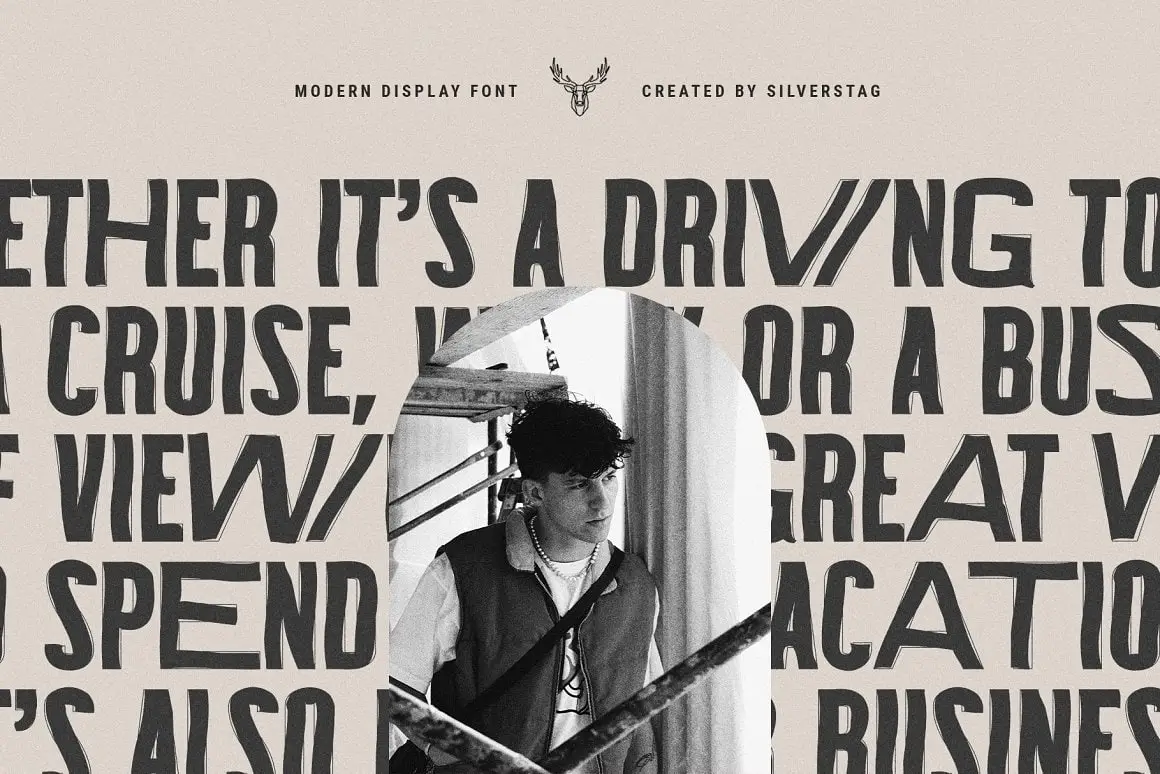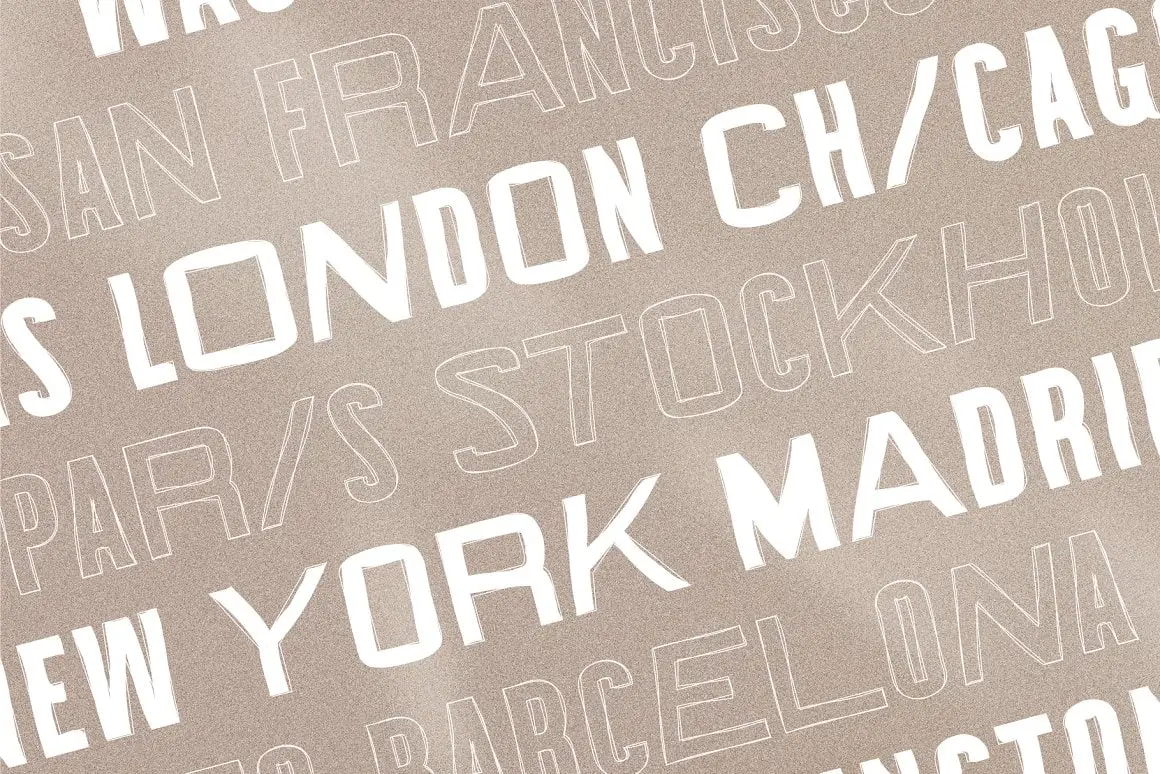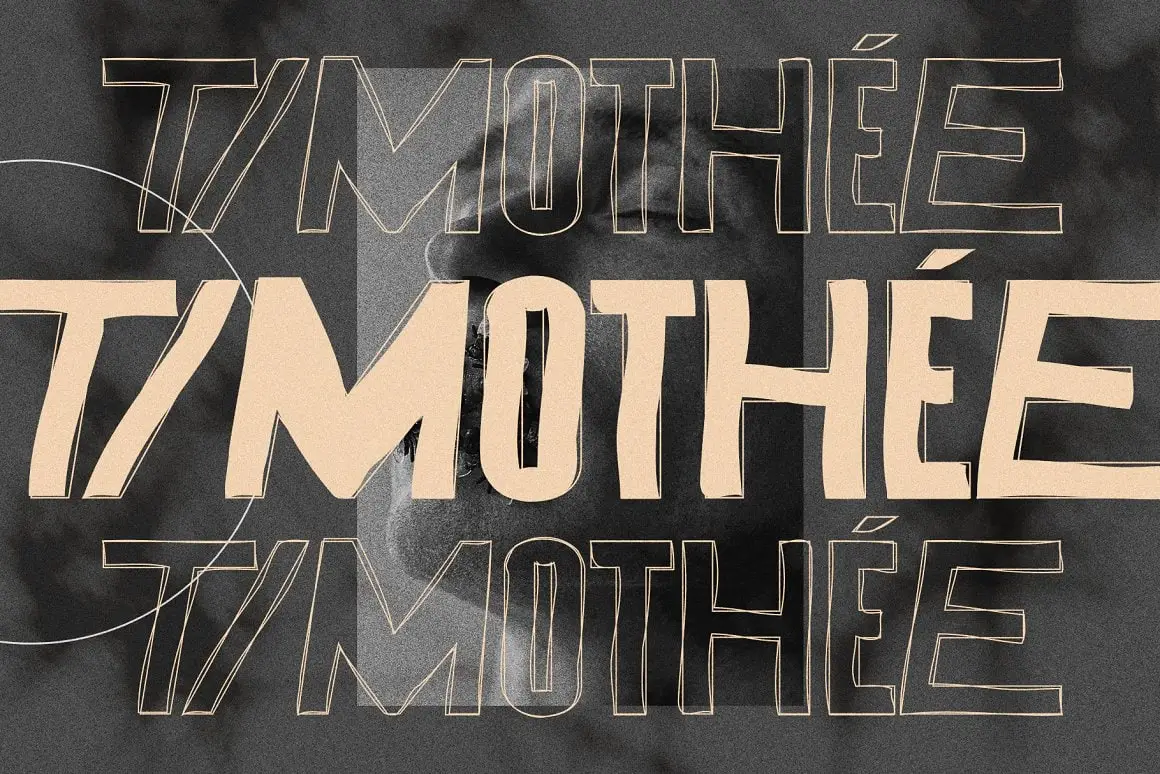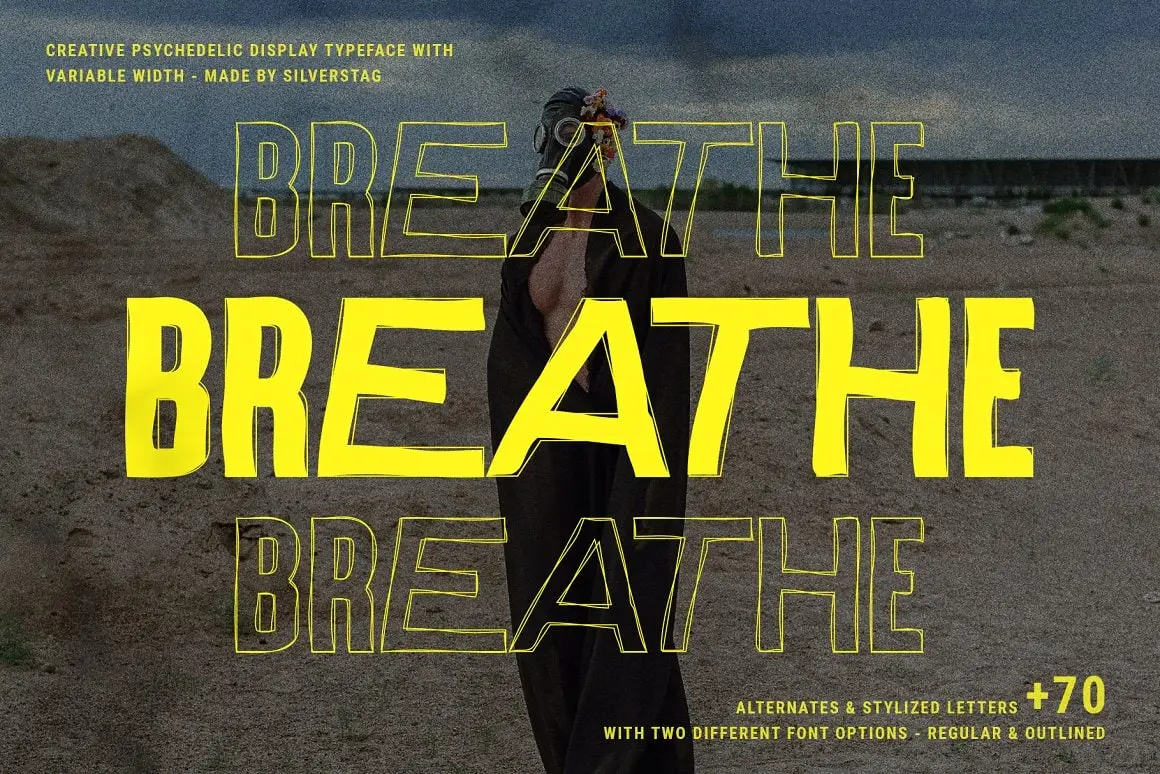
Savigny-Psychedelic Display Font
The Savigny-Psychedelic Display Font is a striking typeface that captures the essence of vibrant, artistic expression. With its unique design, this font is perfect for making bold statements in various creative projects.
• Distinctive psychedelic style
• Styles: Display
Ideal for branding, logos, posters, and web design, the Savigny-Psychedelic Display Font adds a unique flair to any project. Use it to create eye-catching headlines or to bring a playful touch to your designs.